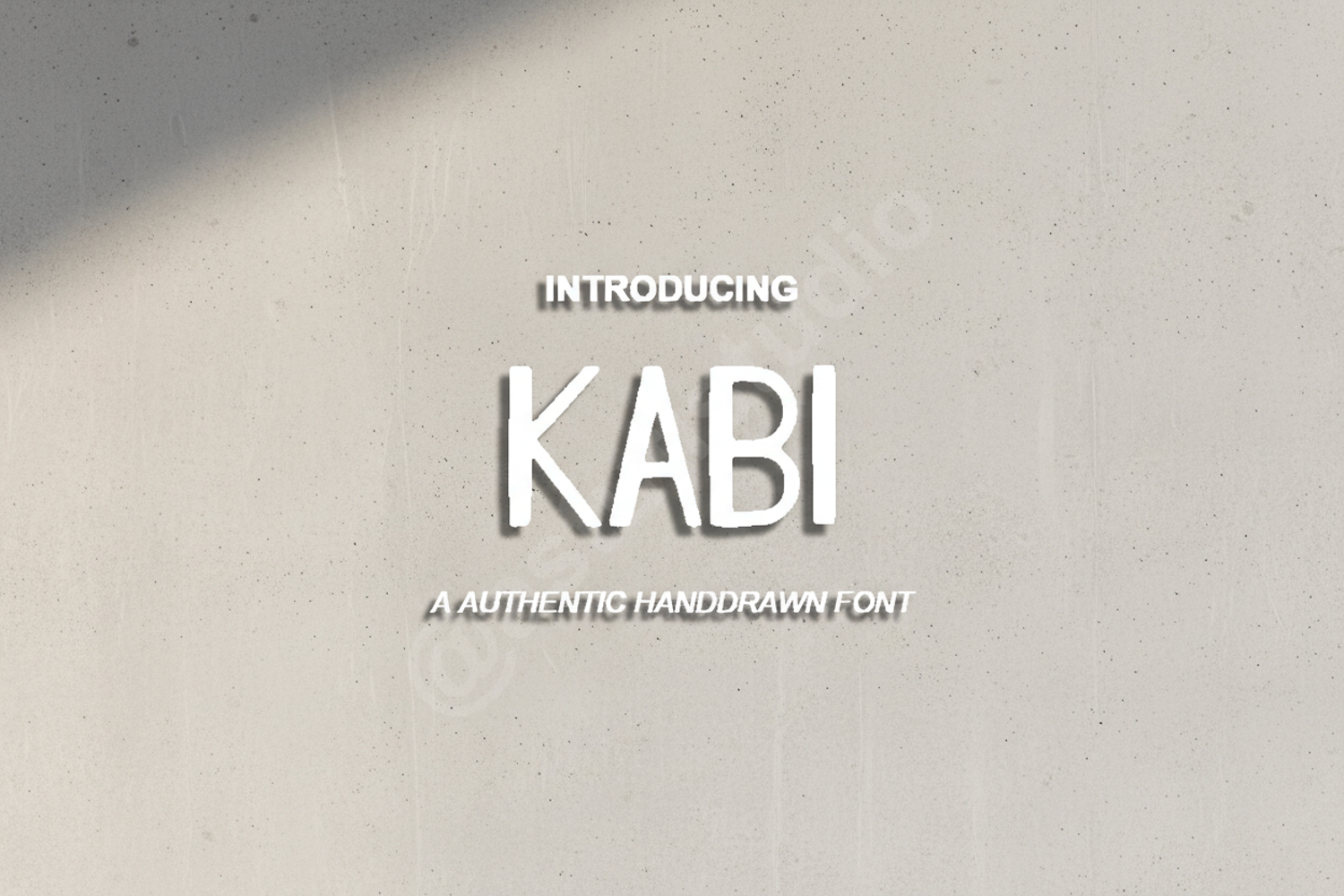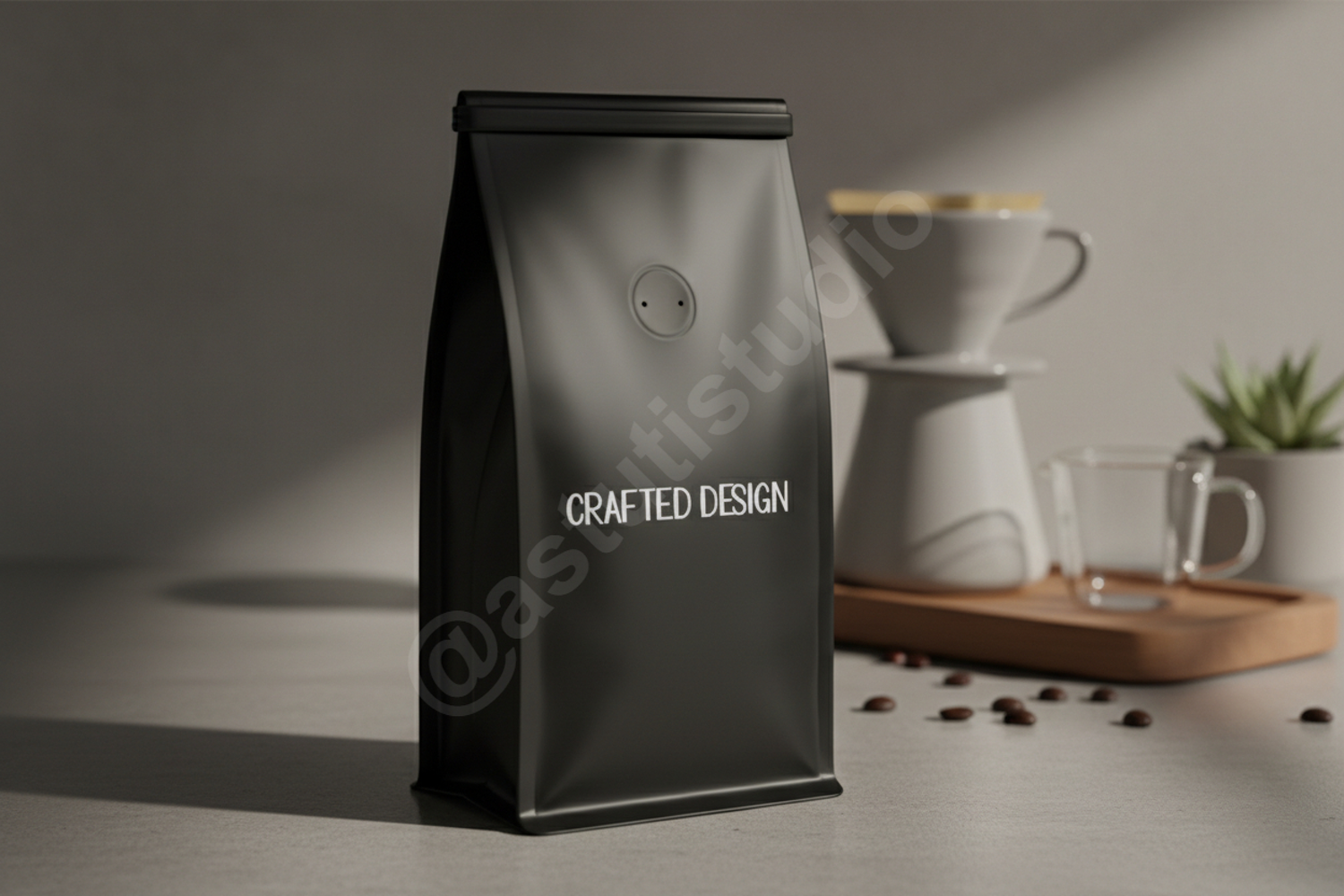
Kabi - Elegant Modern Sans Serif
Kabi
Elevate your creative projects with Kabi, a premium sans serif typeface that balances minimalist aesthetics with professional versatility. Designed with clean lines and a contemporary feel, Kabi is the perfect choice for designers looking to add a touch of sophistication to their work. Whether you are building a brand from scratch or refreshing an existing identity, this font offers the clarity and style required for high-end results.
- Multi-language Support
- Standard Ligatures and Alternates
- Branding and Logo Design: Create impactful identities that stand out.
- Editorial Layouts: Perfect for magazine headers and body text.
- Wedding Stationery: Add a modern twist to invitations and menus.
- Social Media Graphics: Enhance your digital presence with readable, stylish type.
- Corporate Presentations: Maintain a professional look across all business communications.